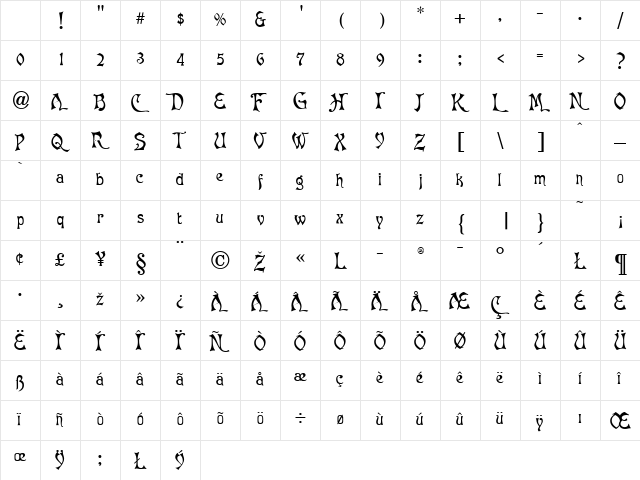
Ferdinand Regular
Foundry: Digitized by Dan X. Solo. Software Dover Publications, Inc
Design Context for Ferdinand
Ferdinand is a composed and adaptable typeface that performs quietly and consistently across a wide range of design contexts.